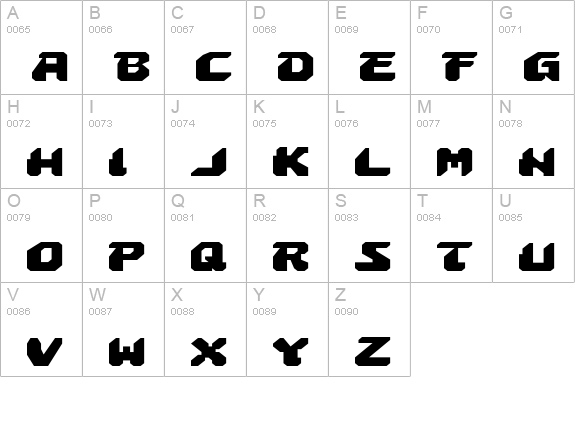
Astropolis Expanded is a distinctive, extended-width variant in the Astropolis typeface family \xE2\x80\x94 well suited to design and typography projects.
Astropolis Expanded font is a modern and sleek typeface that exudes sophistication and elegance. With its clean lines and stylish curves, this font is perfect for a wide range of design projects, from branding to editorial design. The expanded version of Astropolis adds a touch of boldness and presence to your typography, making a strong visual impact. What sets Astropolis Expanded font apart is not only its striking design, but also its versatility. Whether you're creating a logo, poster, website, or any other design project, this font will elevate your work to the next level. Best of all, Astropolis Expanded font is completely free to download at FontsMarket.com. This means you can add this beautiful typeface to your collection without any cost, making it a valuable resource for designers and creatives looking to enhance their projects with a touch of sophistication and style. Download Astropolis Expanded font today and bring your designs to life with this stunning typeface.